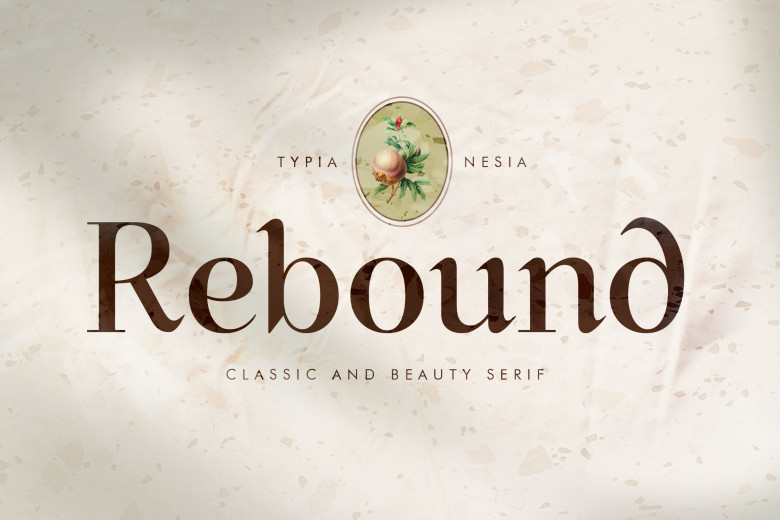
Rebound Font
Rebound Classy Elegant Display Serif Vintage Fantasy Font Royal & Luxury Font is perfect for upcoming projects requiring luxurious logos or branding; such as luxury logos and branding for luxury goods companies or editorial design for woman magazines, cosmetic branding promotions, fashion promotions or art gallery, museum, historical, architectural branding or boutique branding.
Rebound Classic Serif Font